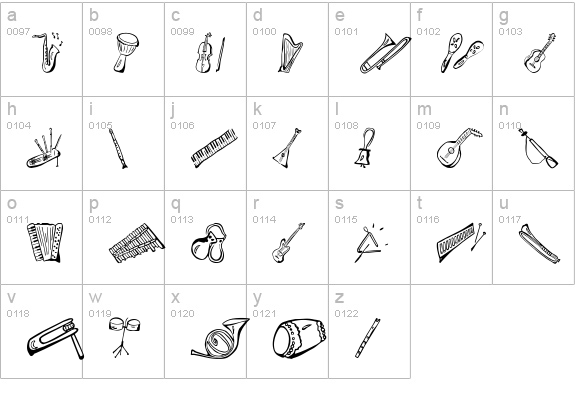
Introducing Music for a While font, a harmonious typeface that strikes a perfect balance between elegance and modernity. This exquisite font exudes a sense of sophistication and charm, making it ideal for a wide range of design projects. With its graceful curves and delicate strokes, Music for a While font captures the essence of timeless beauty. This versatile font is perfect for creating stunning logos, branding materials, invitations, and more. Its sleek and stylish design will add a touch of class to any project. Whether you're working on a wedding invitation or a high-end fashion magazine, Music for a While font is sure to make a lasting impression. And the best part? Music for a While font is available for free download at FontsMarket.com. So you can add this gorgeous font to your collection without breaking the bank. Don't miss out on this amazing opportunity to elevate your designs with Music for a While font. Download it today and let your creativity soar!